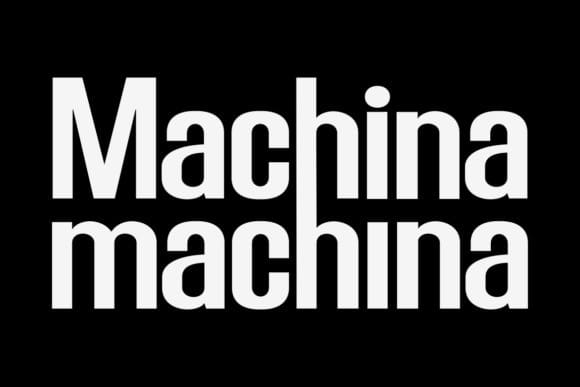
Sanguard Font
Sanguard Font is a sleek and modern sans-serif font that brings a contemporary edge to your designs. With clean lines and a minimalist style, it offers a fresh and sophisticated look. Perfect for a variety of projects, Sanguard Font adds a touch of modernity to your text, ensuring a clean and stylish presentation. Upgrade your visuals with this versatile font, suitable for anything from logos to headers, for a polished and on-trend aesthetic.